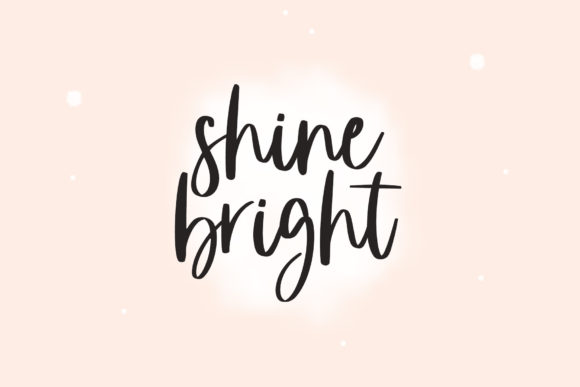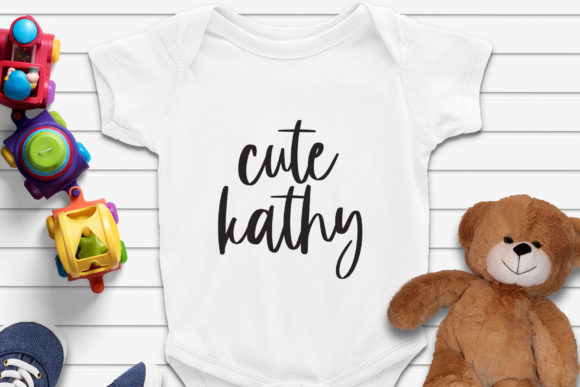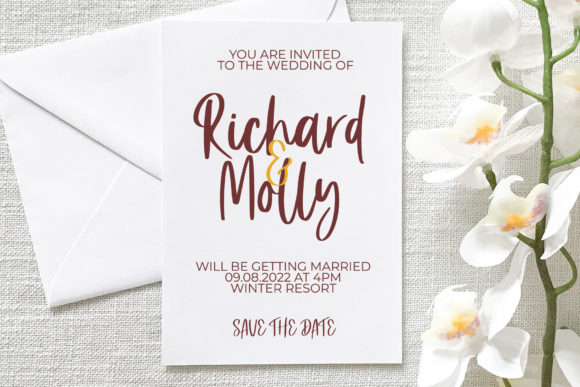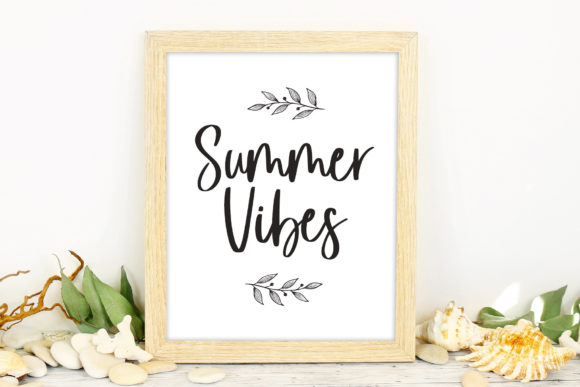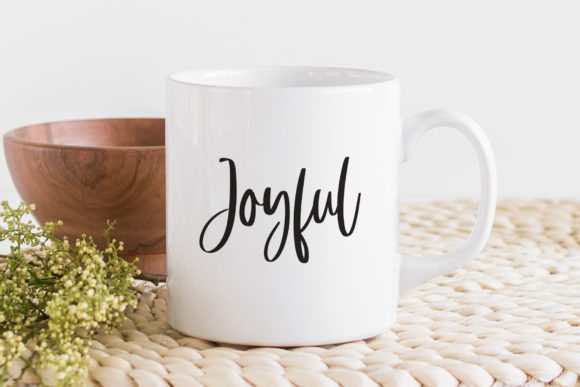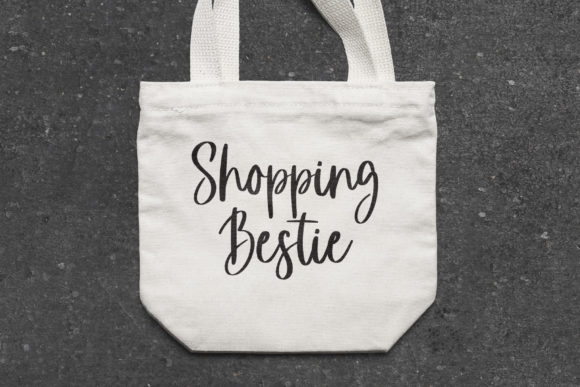
Introduction to Lemon Smoothie Font
Lemon Smoothie is a cute and bouncy handwritten font.
Its cuteness and quirkiness made this font can be used for a wide range of design projects, especially designs that need handwritten touch Lemon Smoothie is the perfect font for any project, such as wedding invitations, t-shirt design, crafting, sticker, sublimation, and many more.